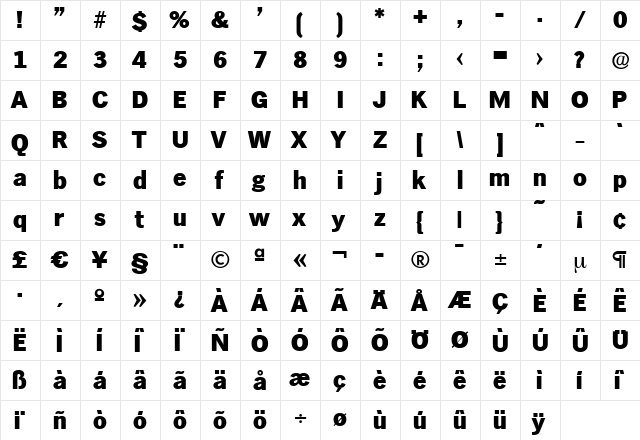
StephenBecker-Heavy Regular
Design Context for StephenBecker-Heavy Typeface
StephenBecker-Heavy takes a measured approach to typography — its balanced proportions and neutral character make it a reliable workhorse for both digital and print work.
Pro Tip: Use StephenBecker-Heavy in both headline and body roles to test its range before committing to a single application.